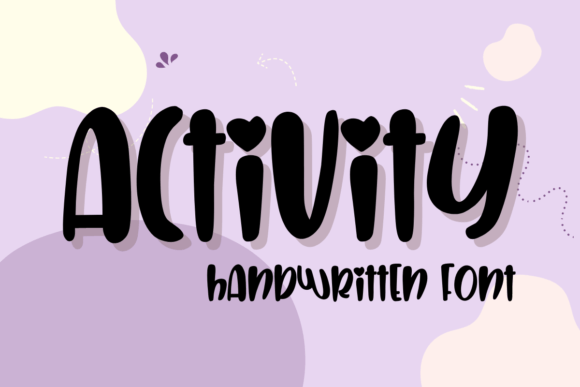
Unleash Your Creativity with Activity Font
Have you ever sat down with a blank notebook, a cup of coffee, and a burst of inspiration? The ideas start flowing, and before you know it, you’re lost in a world of creativity. This moment is what makes us designers – the spark that sets our imagination ablaze. But what if we told you there’s a way to capture this essence and bring it to life in a more permanent form?
Enter Activity Font, a beautiful handwritten font designed specifically for those who live for creativity. Whether you’re jotting down notes, writing a heartfelt diary entry, or crafting a one-of-a-kind greeting card, Activity Font is the perfect companion for your artistic endeavors. Its organic feel and fluid lines make it an instant favorite among designers, who appreciate its versatility and expressiveness.
Activity Font Key Features
- Font Size: The font family includes a range of weights from Thin to Extra Bold, allowing designers to choose the perfect size for their project.
- Unique Characteristics: The font features a dynamic and energetic feel, with unique letterforms and subtle flourishes that add a touch of sophistication.
- Scalability: The font is optimized for use at various sizes, from small text to large headlines, ensuring it remains legible and visually appealing in any context.
Activity Font Review
Overall, I’m underwhelmed by Activity Font. While it has some nice qualities, it’s not without its limitations.
- Customizable typography: Activity Font offers a range of font sizes and line heights that can be tailored to fit different design needs.
- Smooth letterforms: The font’s letterforms are clean and well-designed, making it easy to read.
- Lack of character: The font’s design feels somewhat generic and lacks personality, making it less suitable for designs that require a unique touch.
- No bold or italic weights: The font is only available in regular weight, which can limit its versatility in certain design contexts.
- Not ideal for large blocks of text: While the font is readable, it’s not designed for large blocks of text, which can make it less suitable for certain types of content.
Activity Font is a solid, if unremarkable, font choice. While it has some nice qualities, its limitations may make it less suitable for designs that require a unique touch or a high degree of versatility.
Some tips for getting the most out of Activity Font include:
- Using it for titles and headings to add a touch of playfulness.
- Pairing it with bold fonts for a fun and energetic look.
- Using it for creative projects such as posters and flyers.
Alternatives to Activity Font
Montserrat is a sans-serif font that is highly legible and versatile. It is perfect for use in digital design, particularly in apps, websites, and mobile interfaces. Montserrat is more geometric and modern compared to Activity Font, which has a more rounded feel.
Lato is a sans-serif font that is clean, modern, and highly legible. It is suitable for use in digital design, particularly in websites, apps, and mobile interfaces. Lato is more elegant and refined compared to Activity Font, which has a more casual feel.
Avenir is a geometric sans-serif font that is highly legible and versatile. It is perfect for use in digital design, particularly in corporate branding, websites, and mobile interfaces. Avenir is more modern and sophisticated compared to Activity Font, which has a more casual feel.
Is Activity Font available in different font weights?